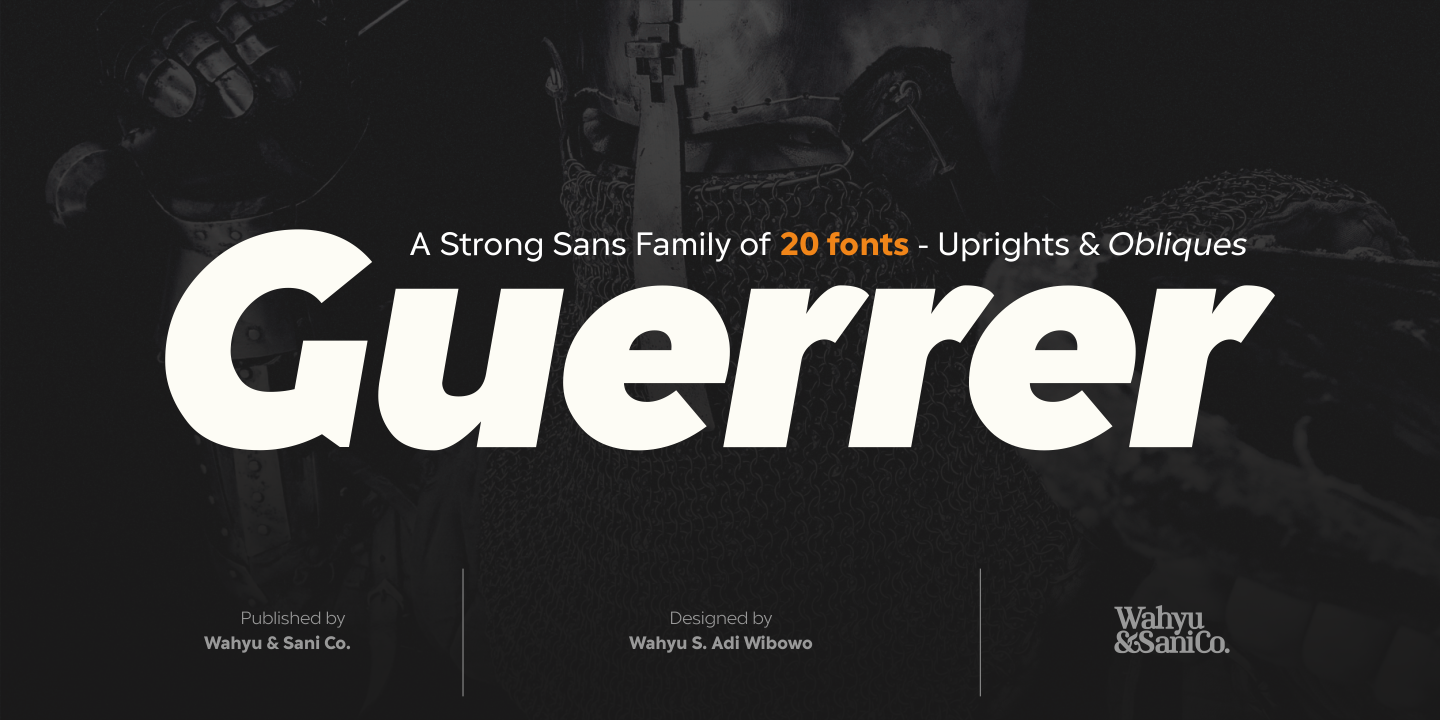
Command attention with Guerrer Font Free Download, a powerful and dynamic typeface that embodies strength, determination, and bold design principles. This exceptional font delivers commanding presence to any project, making it the perfect choice for brands and designers who refuse to blend into the background.
Guerrer Font features robust letterforms with strong geometric foundations and distinctive character details that convey authority and confidence. The font excels in military-inspired designs, sports branding, fitness campaigns, action movie posters, gaming interfaces, and corporate materials requiring bold visual statements. Its masculine energy and professional polish create instant credibility and memorable brand recognition.
This versatile typeface performs exceptionally well across both digital and print mediums, maintaining clarity and impact at any size. Whether you're developing brand identities, creating marketing campaigns, designing product packaging, or building website headers, Guerrer Font ensures your message cuts through the noise with precision and power.
Design professionals worldwide trust the Guerrer Font Free Download for projects demanding strong visual hierarchy and authoritative communication. The font works brilliantly for security companies, construction firms, automotive brands, technology startups, and any business seeking to project strength and reliability through typography.
The complete Guerrer Font family includes multiple weights and styles, providing comprehensive design flexibility for creating cohesive brand systems. Each character demonstrates meticulous craftsmanship, ensuring consistent quality and professional appearance across all applications and platforms.
Perfect for graphic designers, brand strategists, and marketing professionals, this font combines commanding presence with practical functionality. Guerrer Font supports extensive character sets, making it ideal for international campaigns and multilingual content creation.